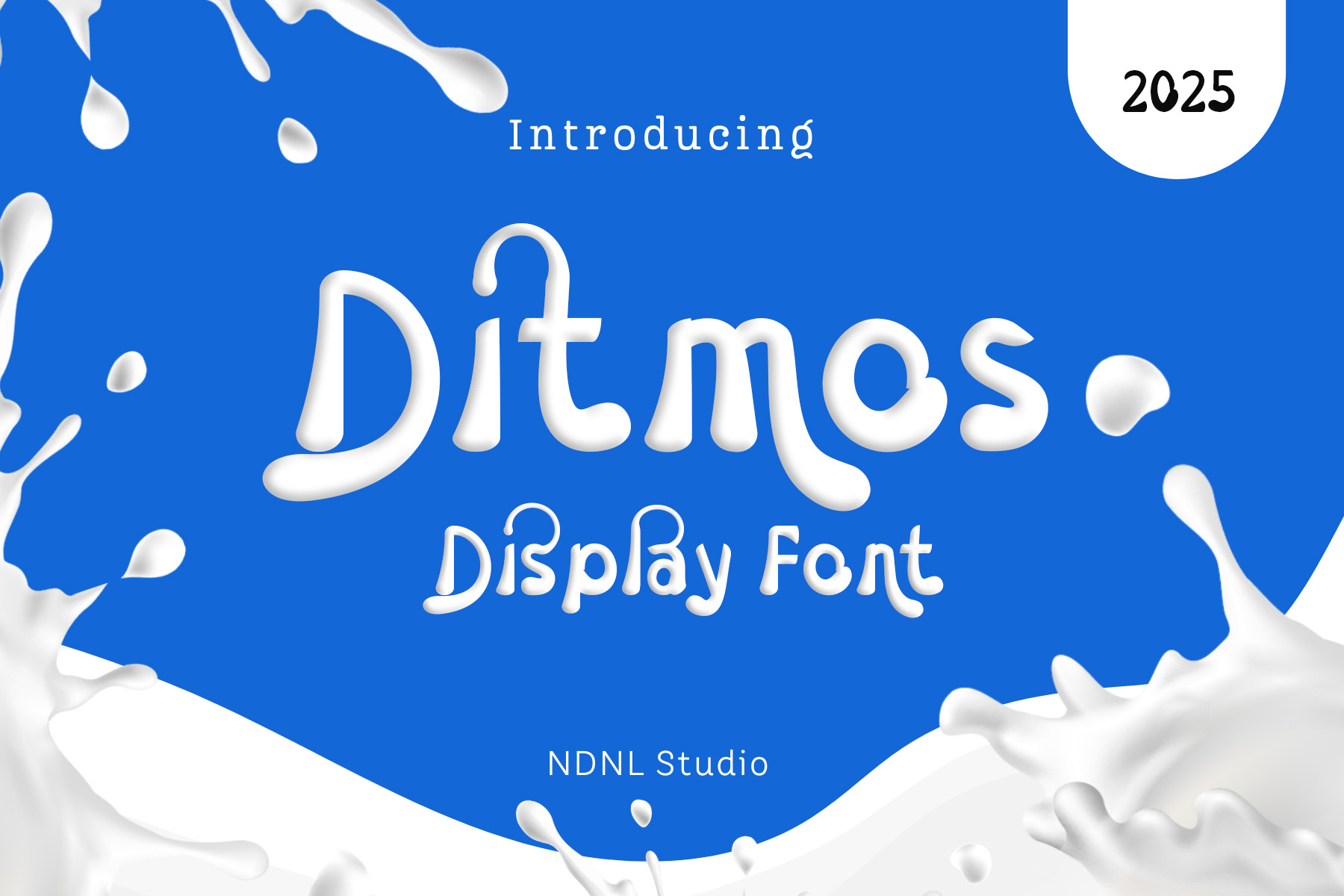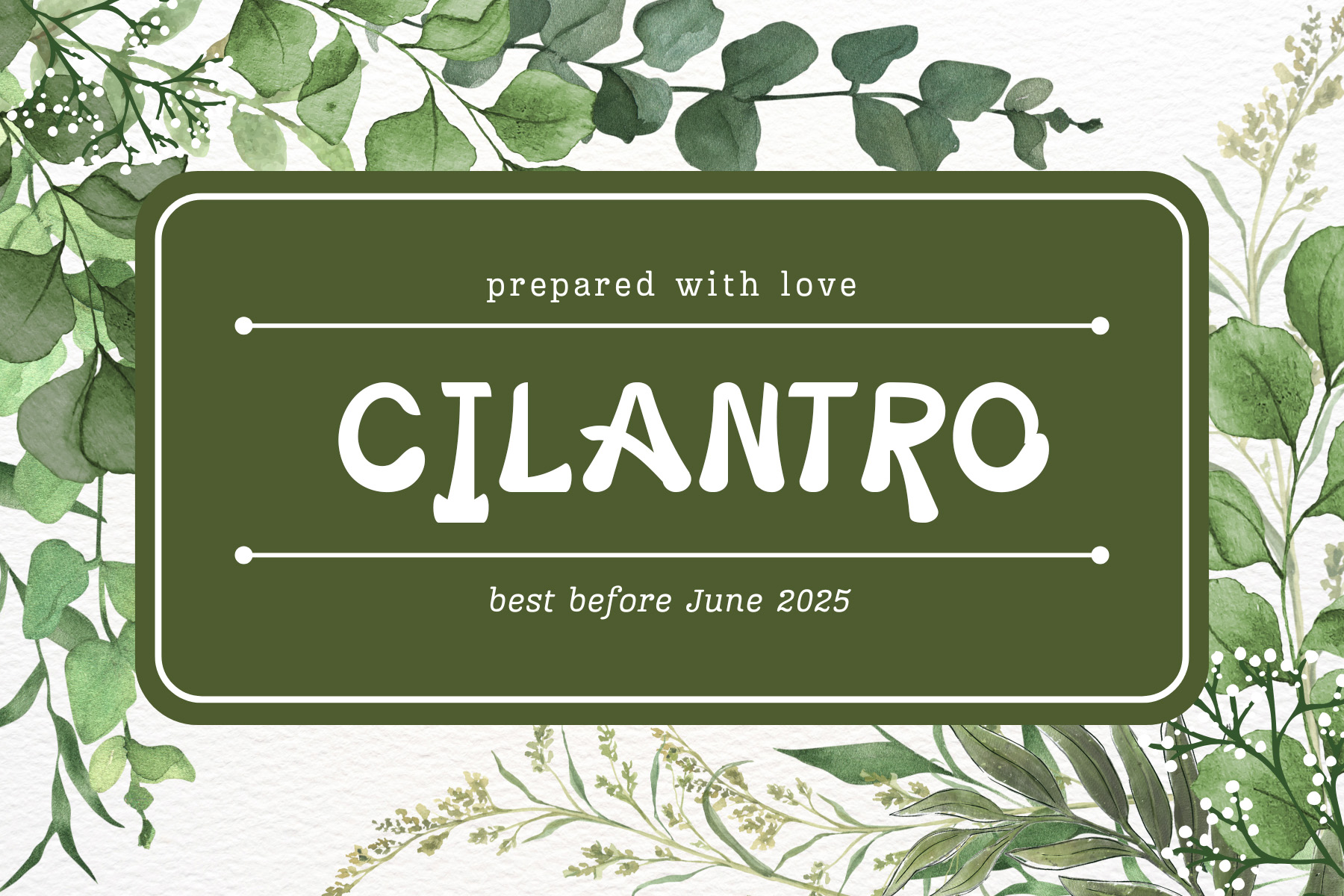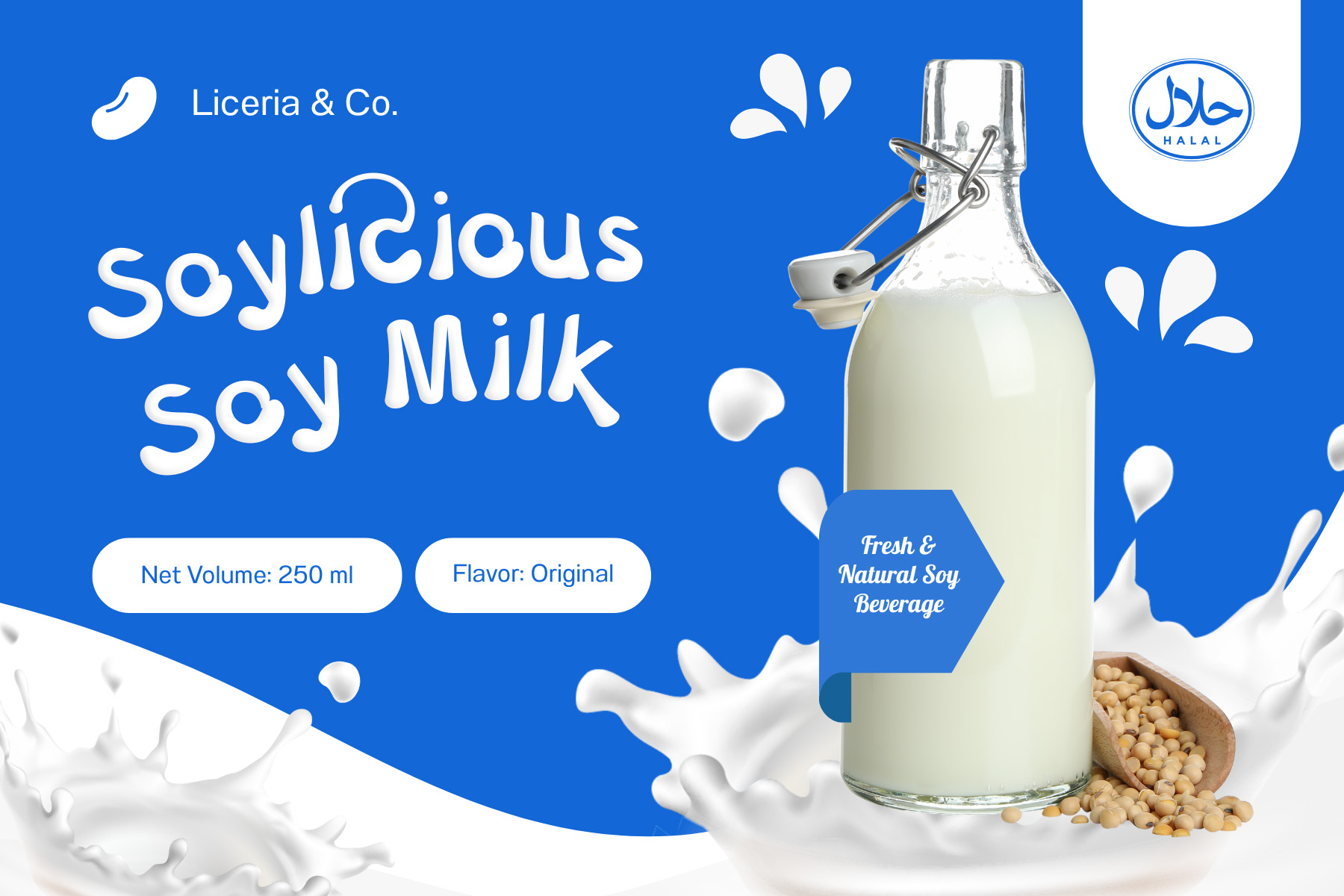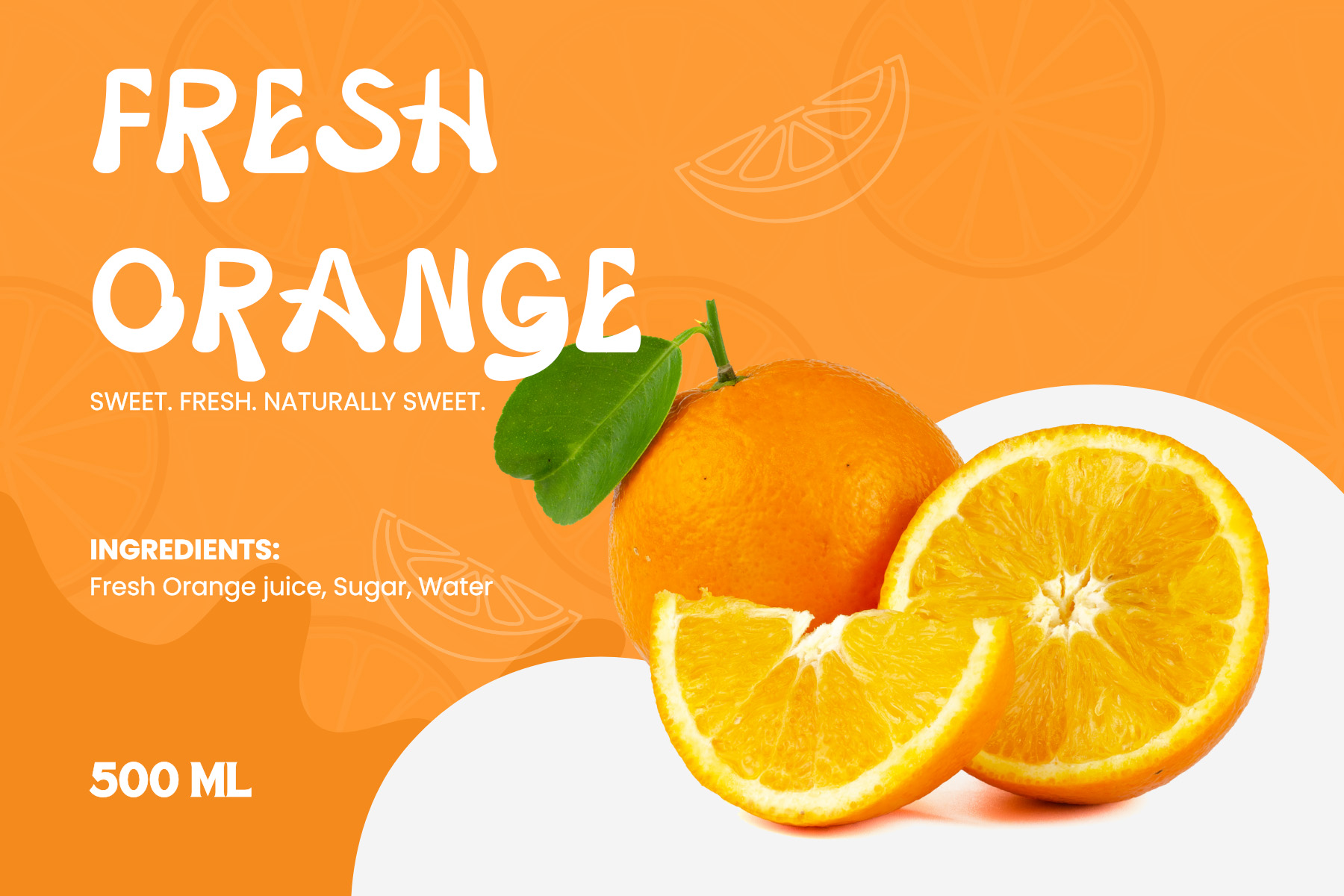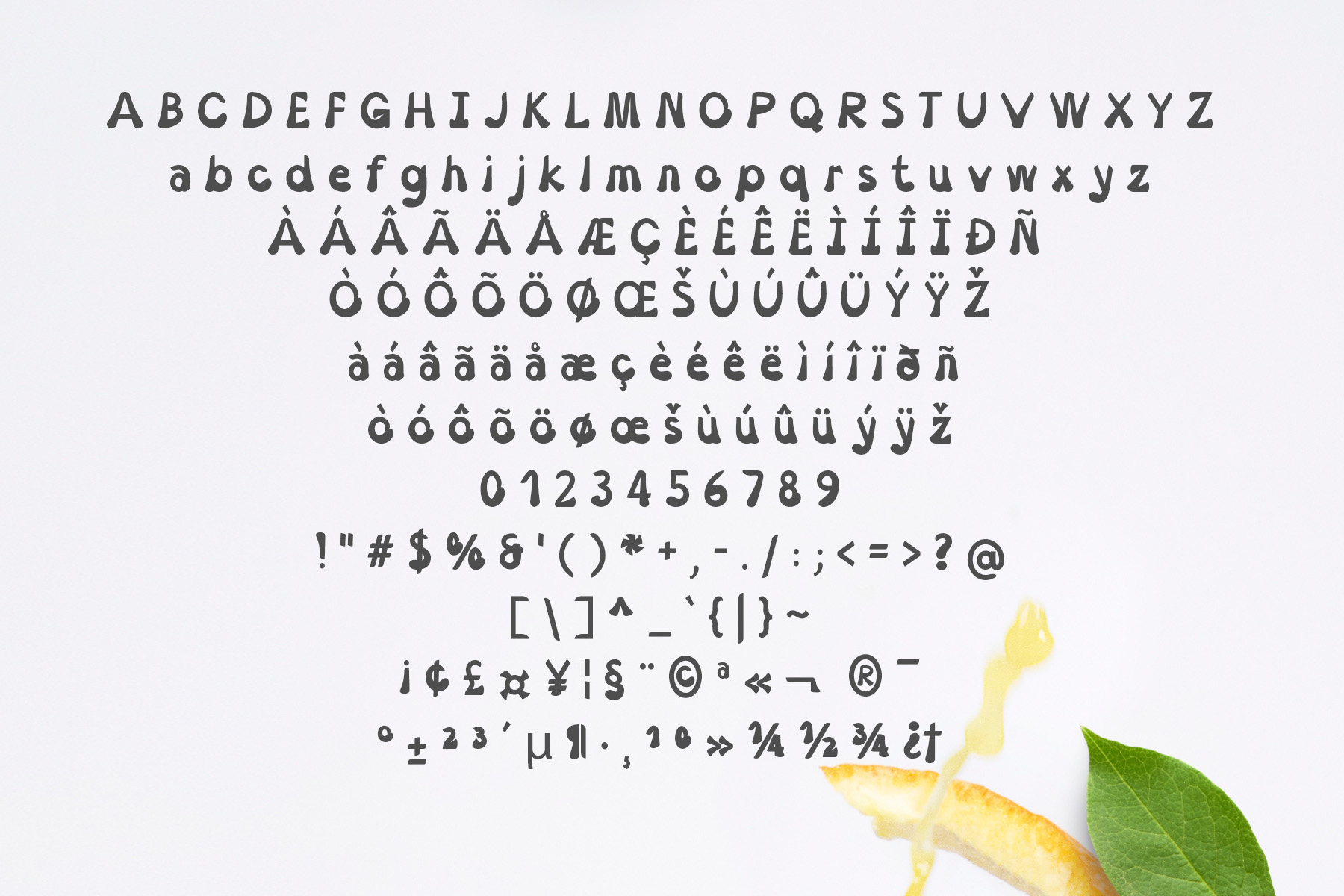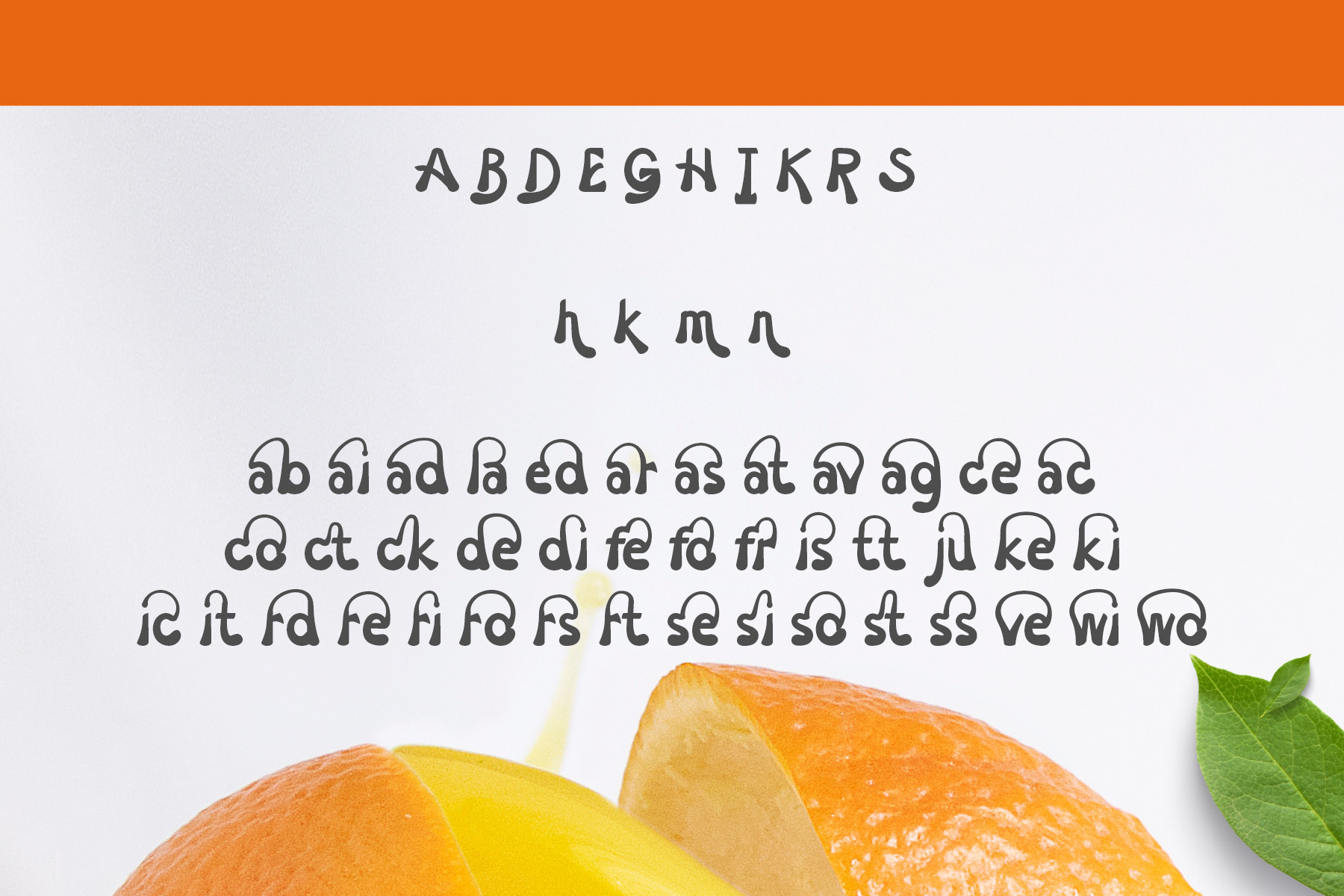
Introducing Ditmos!
Meet Ditmos – a bold and playful display font that looks as smooth as milk! Its rounded, flowing shapes bring a fresh and creamy vibe to any design. Ditmos is perfect for projects that need to grab attention — from product packaging and posters to social media graphics and fun branding.